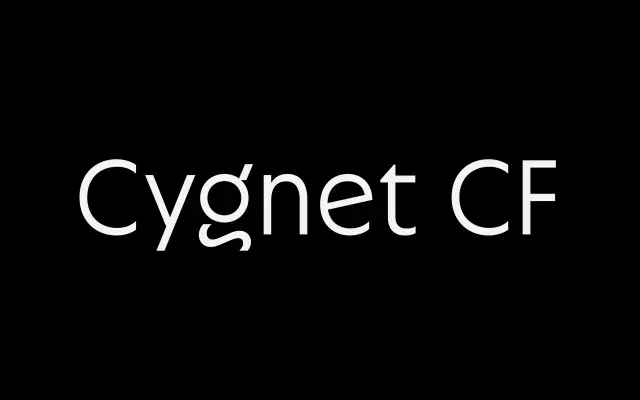
A nine-weight display sans with an unusually tall x-height, covering Latin and Vietnamese script across 18 styles.
Cygnet pairs a generous x-height with a warm, slightly characterful approach to sans-serif forms, making it useful for headlines, captions and logotype work where readability at display sizes matters. Nine weights run from Thin to Heavy, each with a matching italic, covering Latin Extended and Vietnamese. Stylistic alternates for the ampersand, 'b', 'g' and 'y' offer typographic flexibility.
Described explicitly as a display typeface, Cygnet features a tall x-height and expressive warmth that positions it firmly in the display sans category rather than a workhorse grotesque or humanist sans.